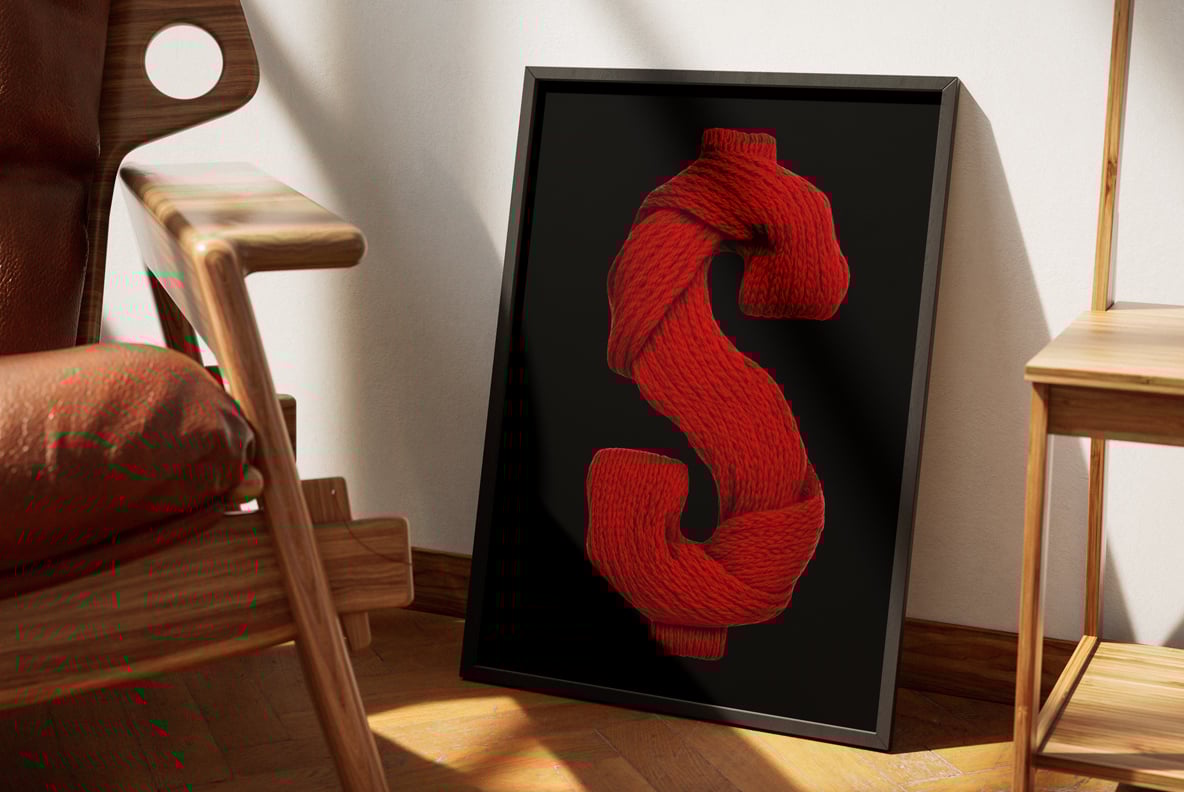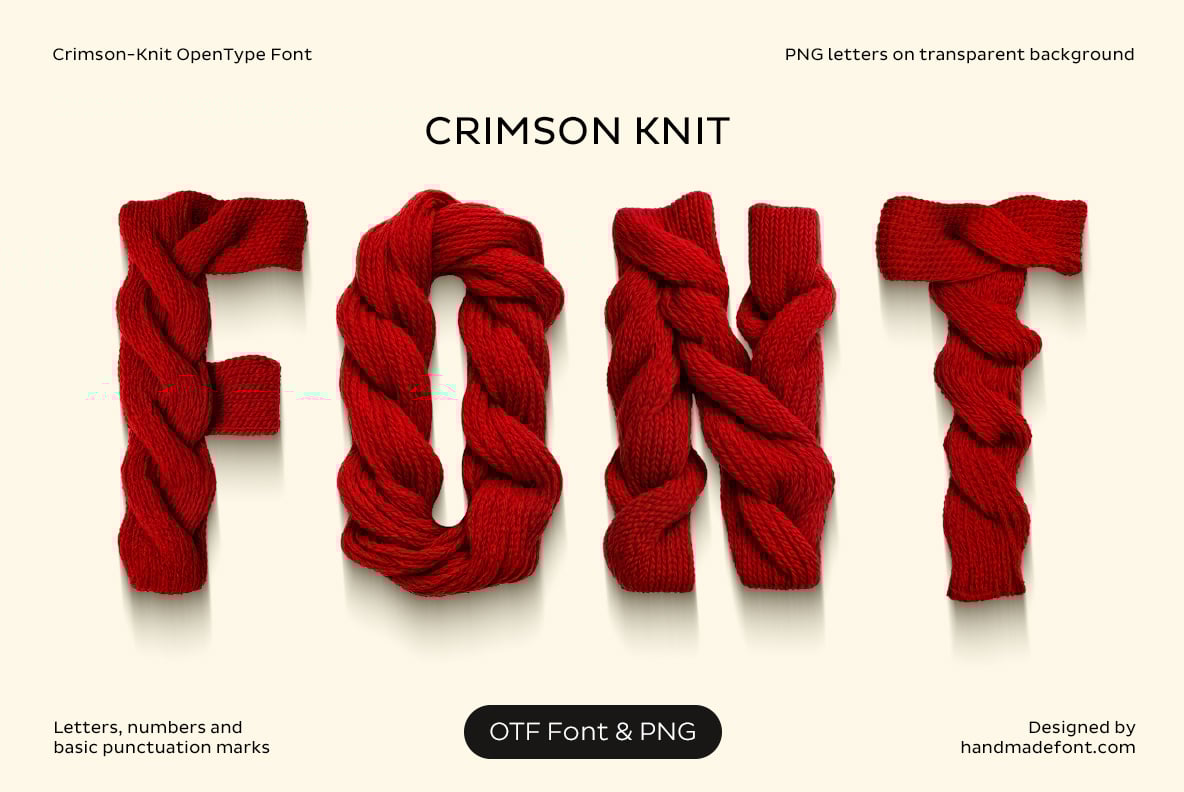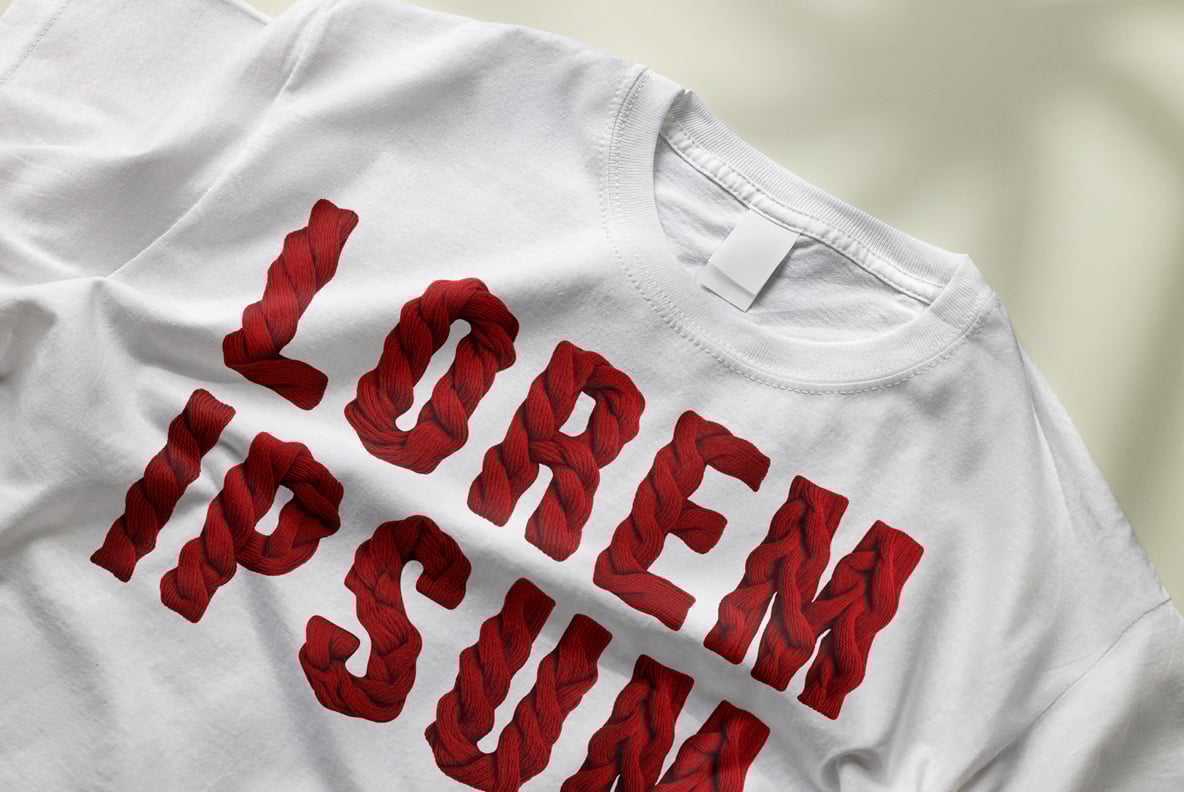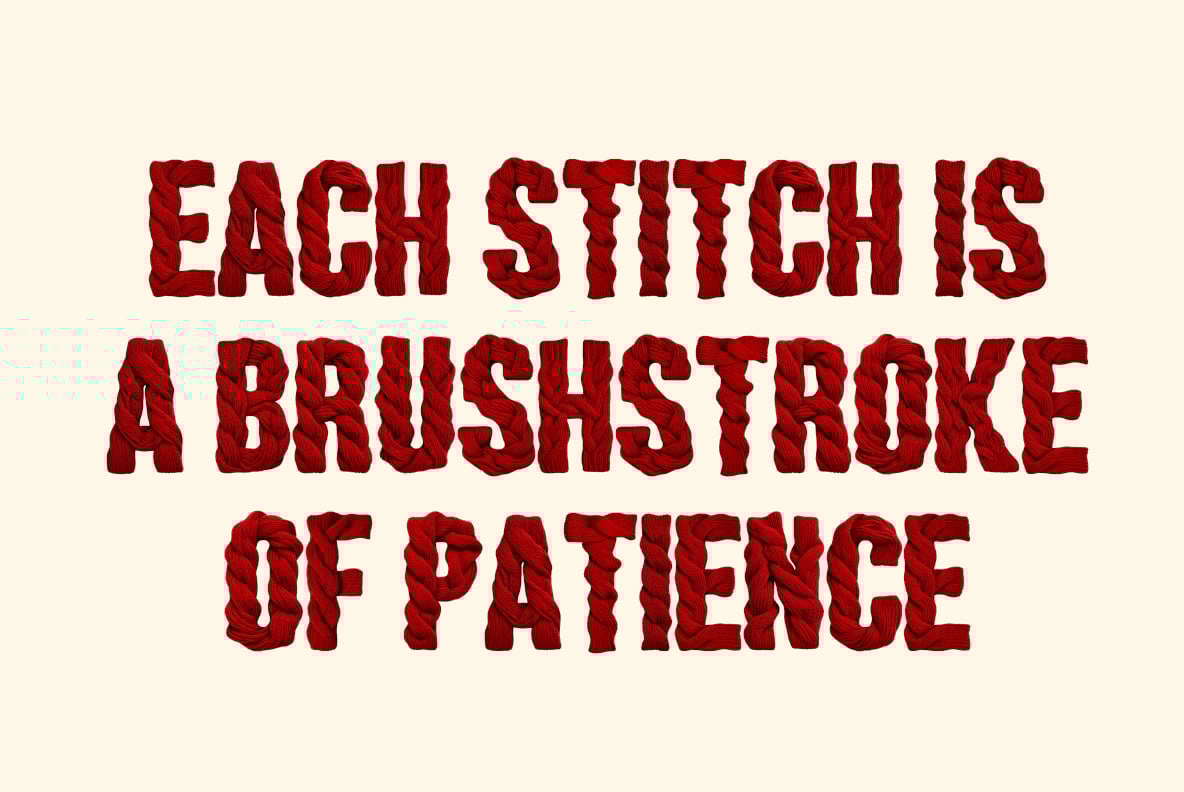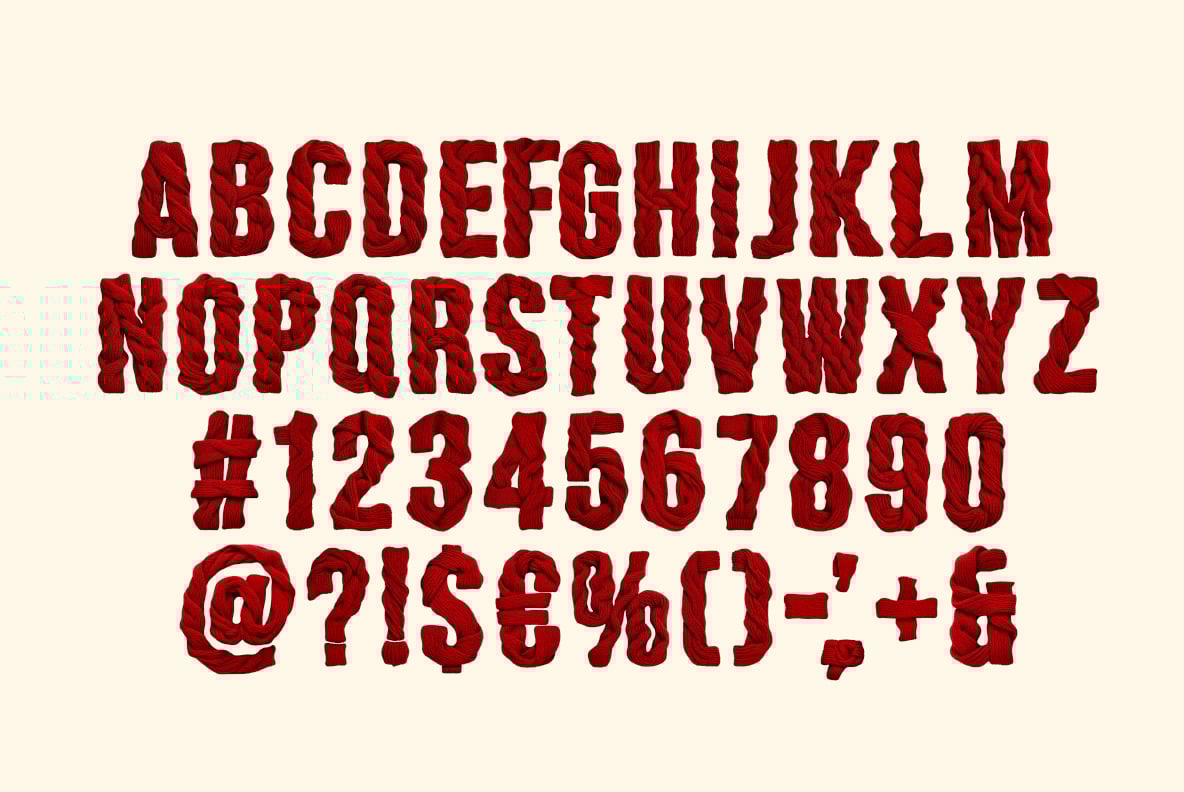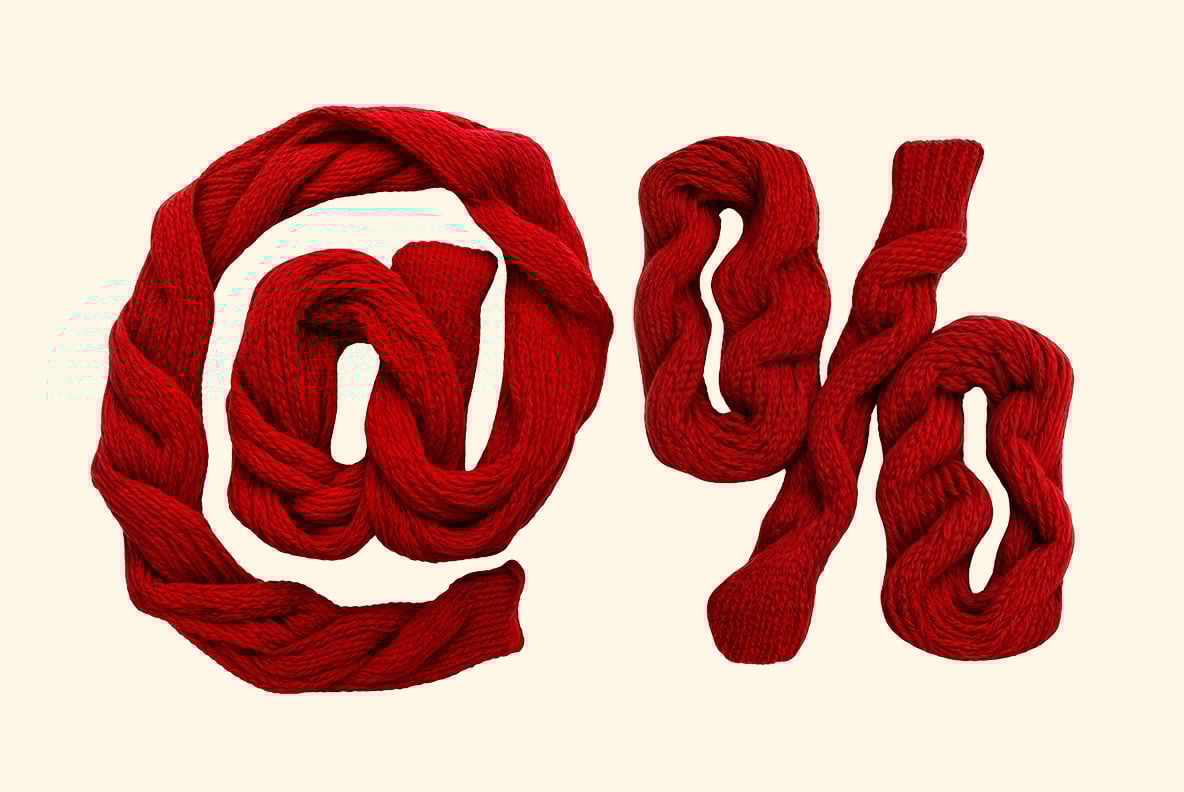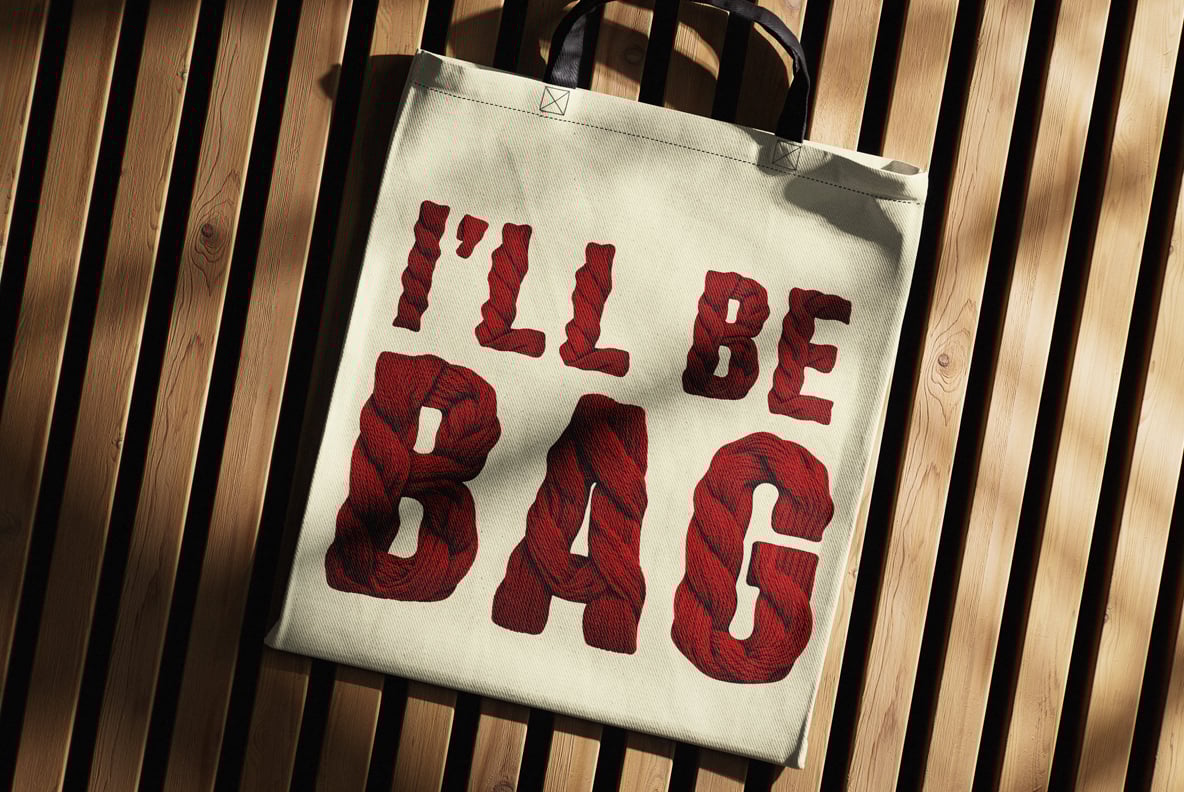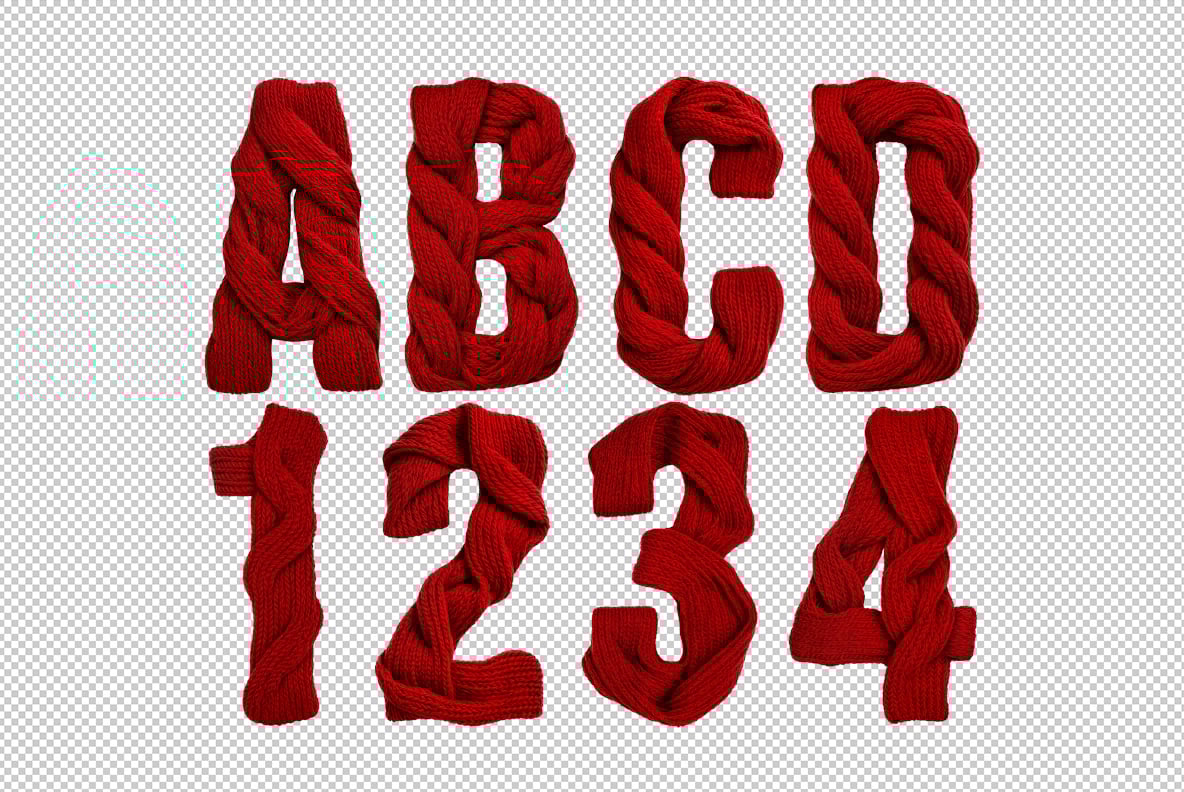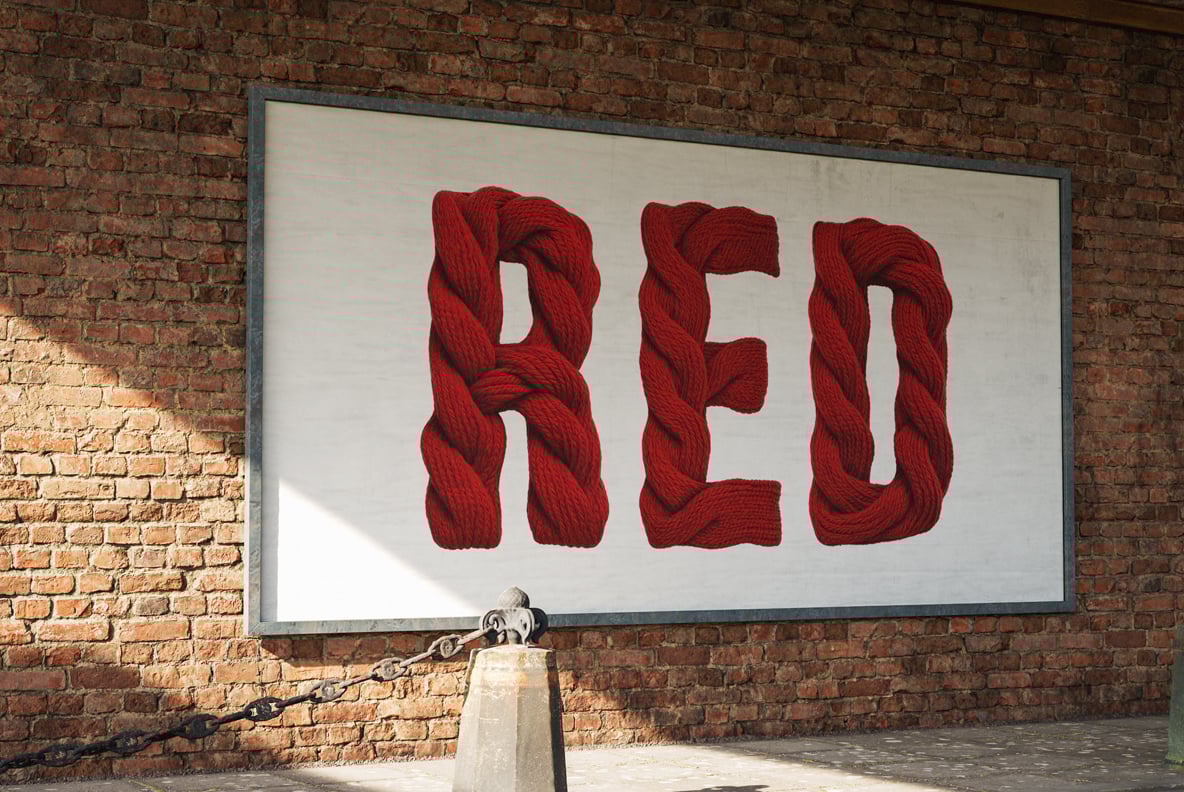
Crimson Knit Font
Introducing Crimson Knit Font — a cozy, bold typeface spun from the warmth of winter scarves and the charm of handmade knits. Each letter is intricately woven from thick, crimson-red yarn, resembling chunky, braided stitches that radiate comfort and style. This font is a perfect blend of creativity and craftsmanship, ideal for projects that call for a touch of warmth, softness, and a tactile sense of texture. Whether you're designing holiday cards, fashion branding, or a quirky craft project, Crimson Knit Font brings a touch of cozy charm and handmade authenticity to your work. Wrap your words in warmth!